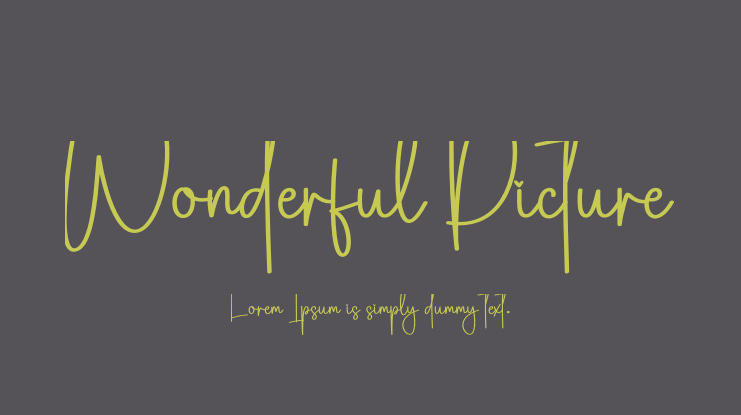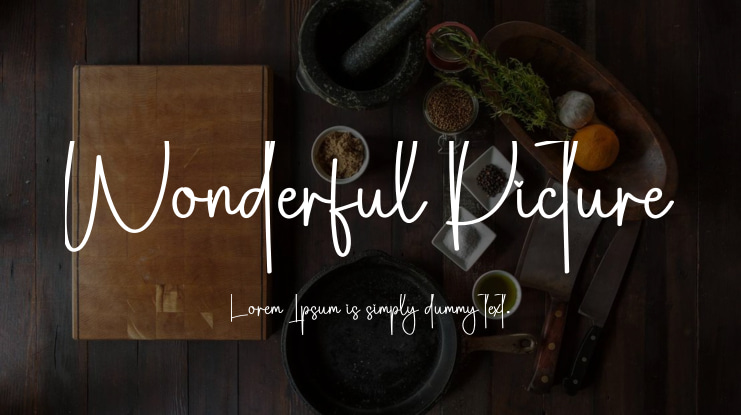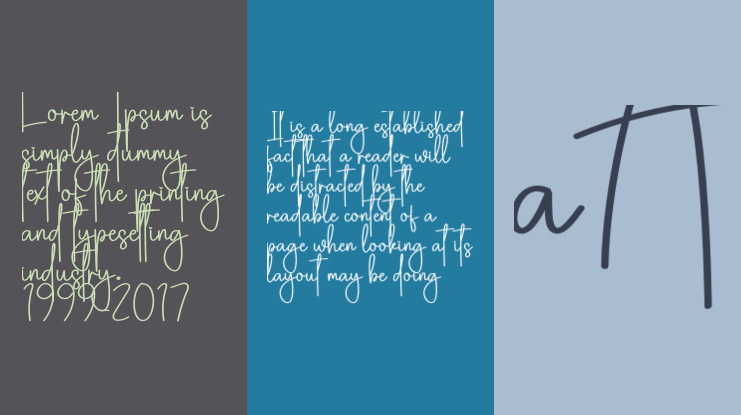
Wonderful Picture Font
The latest style letters are perfect for wall displays, wedding invitations, social media posts, logos, advertisements, product packaging, product designs, labels, photography, watermarks, invitations, stationery, and any project that requires tasteful handwriting.